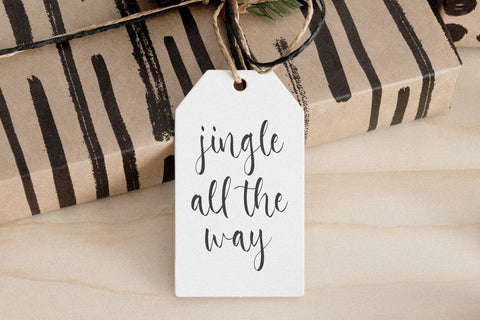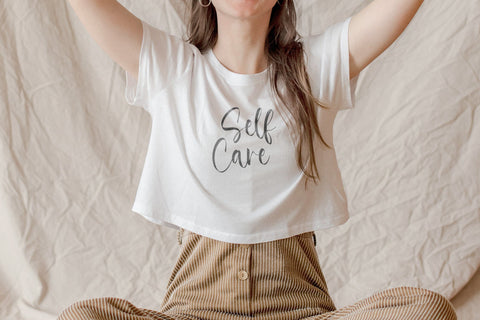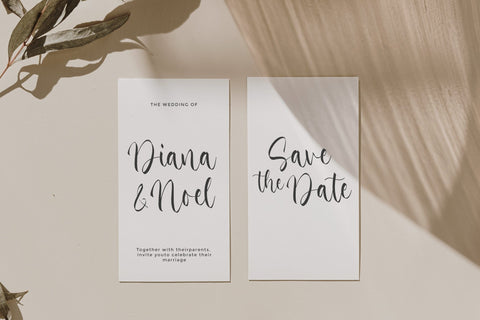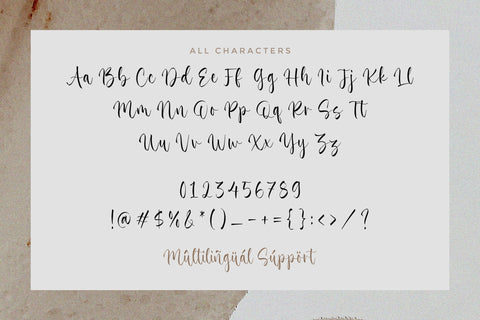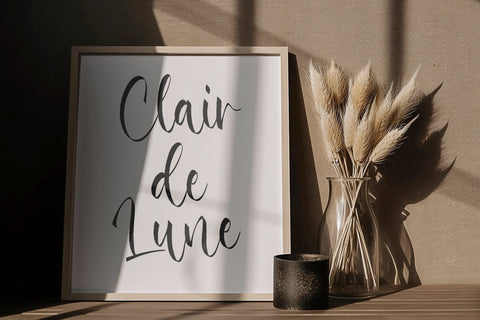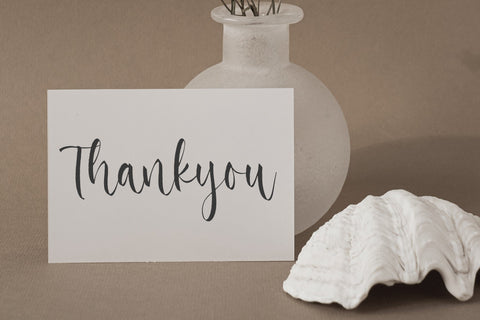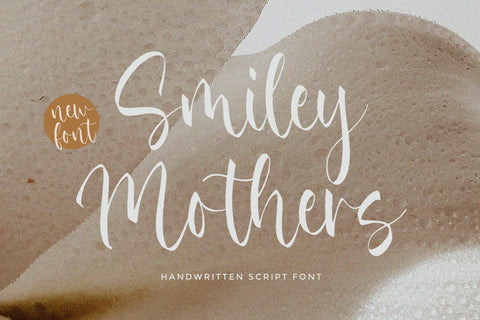
Smiley Mothers - A Handwritten font
Smiley Mothers- A Handwritten font , which was created with great care and specially created for you
Smiley Mothers is perfect for product packaging, branding project, megazine, social media, wedding, or just used to express words above the background.